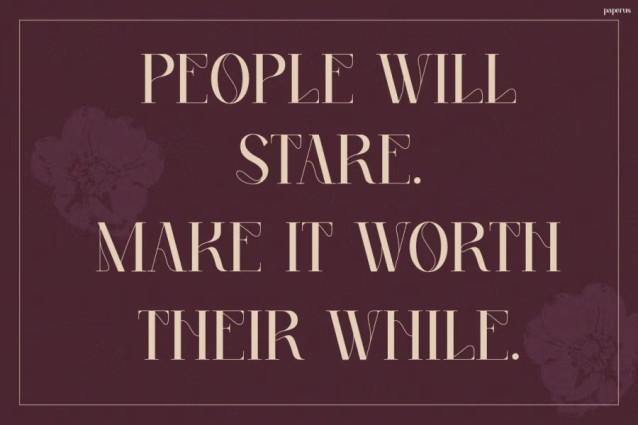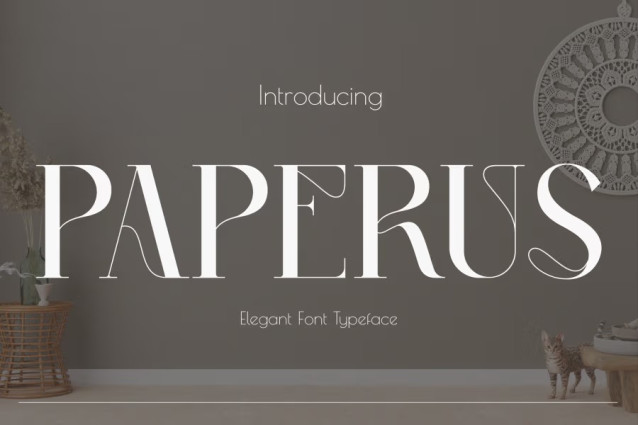
Paperus Font
Paperus Font redefines elegance with confidence and purpose. From the first glance, it commands attention through its tall, refined letterforms and smooth contrast. Moreover, each curve feels intentional, allowing your designs to radiate sophistication and visual harmony. As a result, PAPERUS doesn’t just style your words — it transforms them into a statement of power, luxury, and taste.
Because of its high readability and balanced rhythm, this serif font delivers both beauty and precision. It works perfectly for magazine titles, fashion branding, and creative visuals that need to look clean yet exclusive. Furthermore, every stroke adds a sense of movement, giving your typography energy without losing grace. In short, Instagram Font PAPERUS combines timeless style with modern edge — the ultimate balance for high-end design.
Who It’s Perfect For
Instagram Font PAPERUS was designed for creators who demand perfection. Whether you’re a designer, brand strategist, or business owner, this font allows your ideas to shine with authority and elegance. It fits beautifully into editorial layouts, fashion labels, lifestyle branding, product packaging, and social media posts that require a premium aesthetic.
Additionally, PAPERUS empowers influencers and digital creators to elevate their visual identity. Because it harmonizes effortlessly with minimalist tones and neutral palettes, it works seamlessly across platforms — from Instagram grids to web banners. Consequently, it’s the perfect serif for anyone who wants their design to look elegant, confident, and unforgettable.
Why You’ll Love It
Typography shapes first impressions, and PAPERUS helps you make them memorable. Since every curve carries intention, your message feels refined, clear, and timeless. Moreover, it bridges the gap between modern minimalism and classic beauty — a rare balance that captivates viewers instantly.
If you want your brand to radiate confidence, PAPERUS gives you the tools. Use it to create layouts that breathe sophistication, design stories that feel authentic, and build visuals that never fade with trends. In every word, PAPERUS delivers precision, grace, and style.